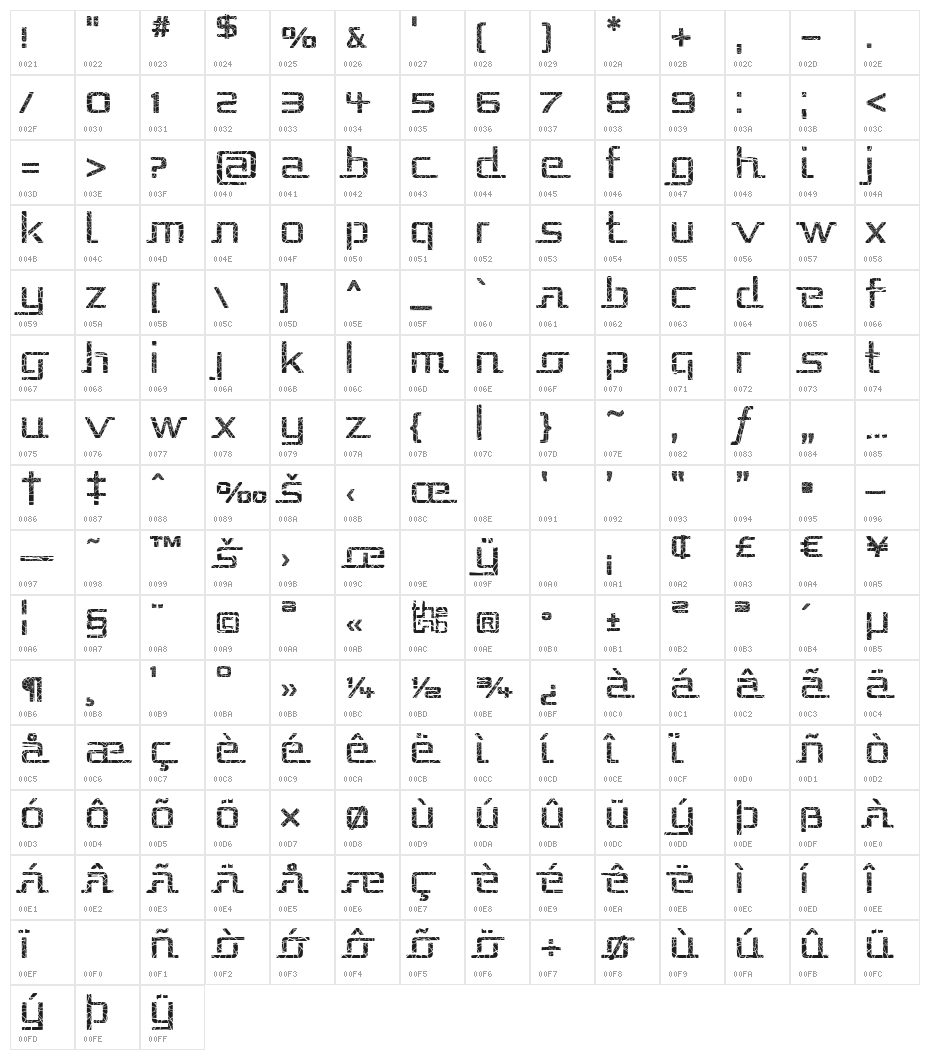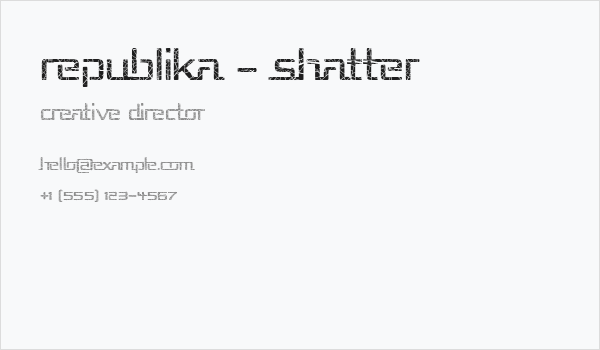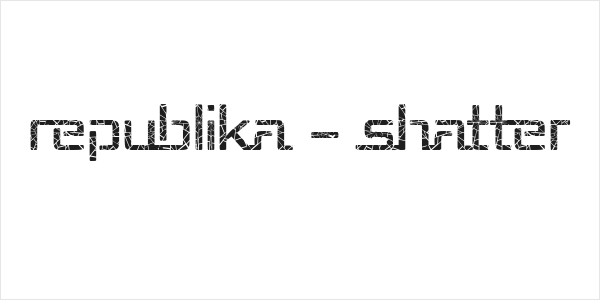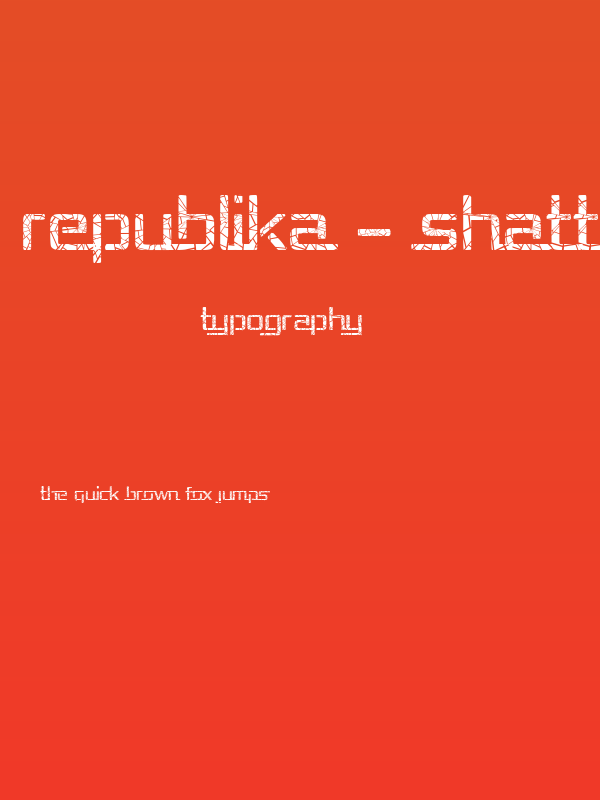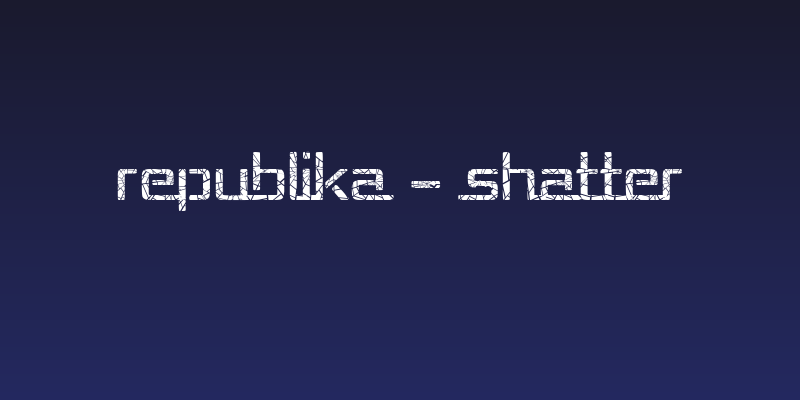
Republika - Shatter Font
Republika - Shatter Description
This font features a unique shattered effect, giving each character a fragmented, mosaic-like appearance. The design is bold and striking, with a geometric structure that maintains legibility despite its decorative style. The uppercase and lowercase letters, as well as numbers and special characters, all share this distinctive shattered pattern, making it ideal for eye-catching designs. The font's angular and edgy aesthetic suggests a modern and dynamic feel, suitable for projects that require a strong visual impact.
| Proposed Projects | Ideal for posters, album covers, branding projects, and any design requiring a bold, modern aesthetic. |